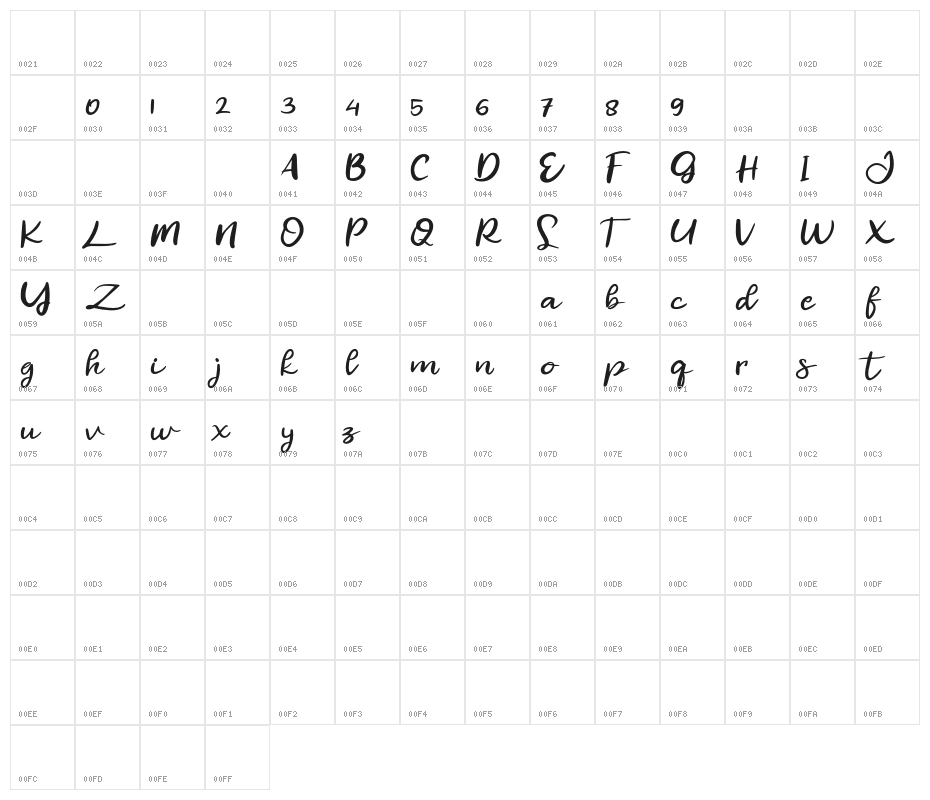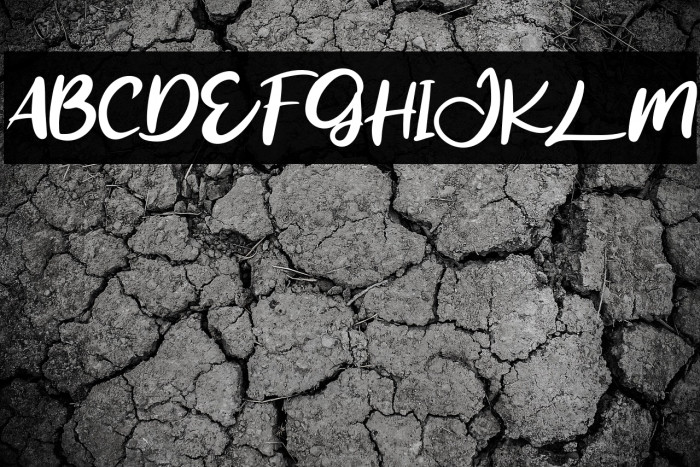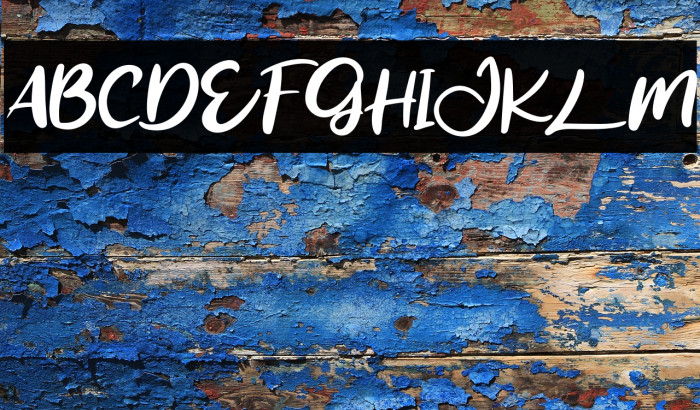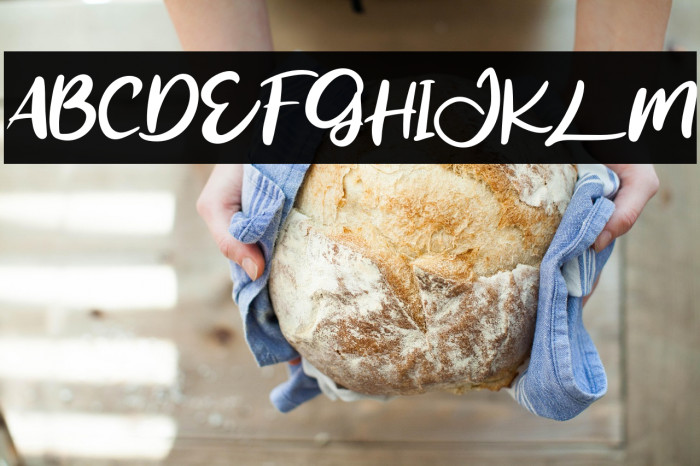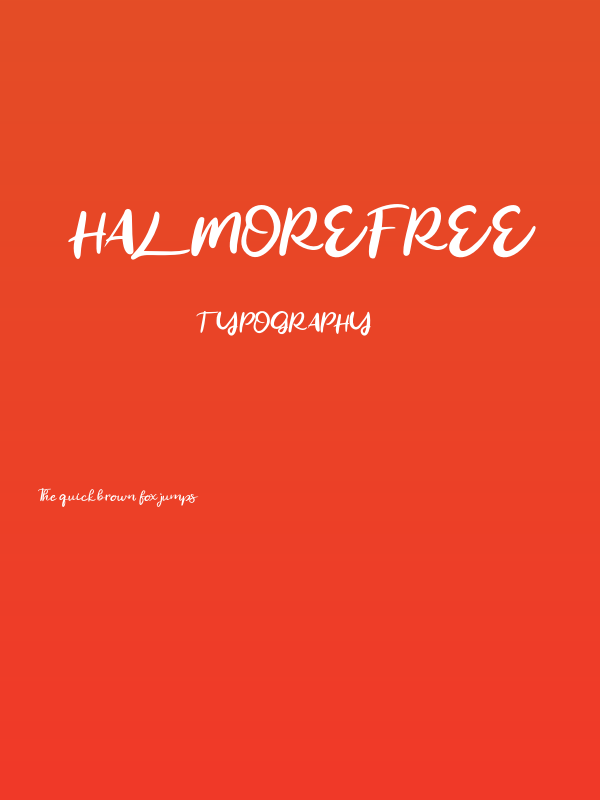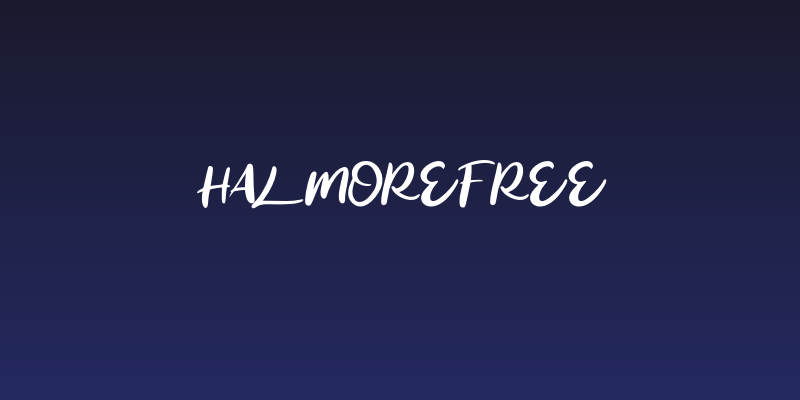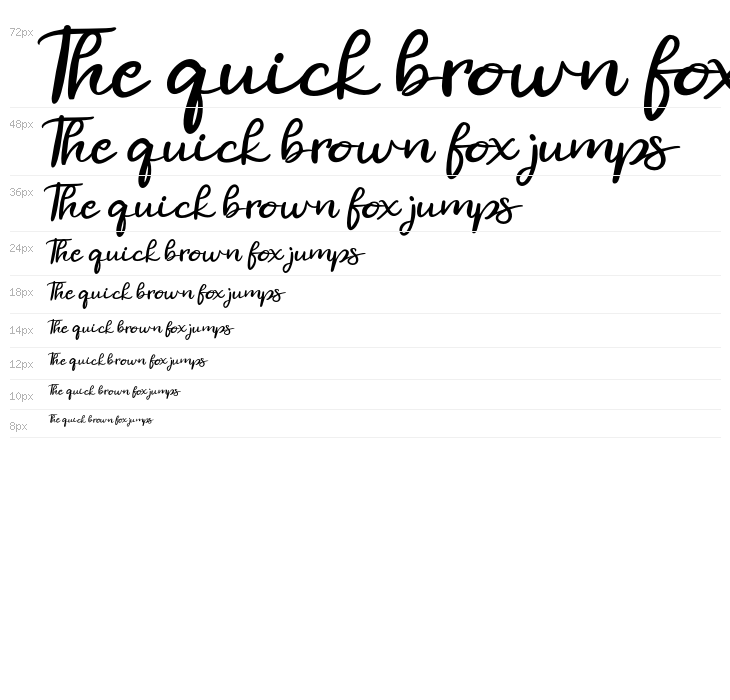
HalmoreFREE Font
HalmoreFREE Description
This font features a lively and expressive script style, characterized by its fluid and dynamic strokes. The uppercase letters exhibit a bold and confident presence, while the lowercase letters maintain a graceful and flowing appearance. The numerals are consistent with the overall style, offering a playful yet sophisticated look. The font's design is well-suited for creative and artistic projects, providing a sense of elegance and flair. Its unique character shapes and smooth curves make it ideal for capturing attention and conveying a sense of movement and energy.
| Use Case | Logos, Headlines, Invitations |
| Proposed Projects | Ideal for wedding invitations, greeting cards, branding, and social media graphics. |